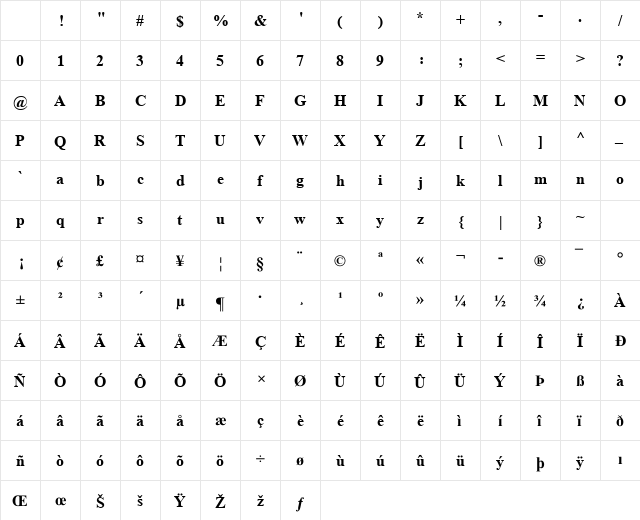
Complete Angsana New Bold glyph index. Displaying only characters natively supported by Angsana New Bold font.
Angsana New is a composed and adaptable typeface that performs quietly and consistently across a wide range of design contexts. Its bold stroke weight gives it real presence on the page.